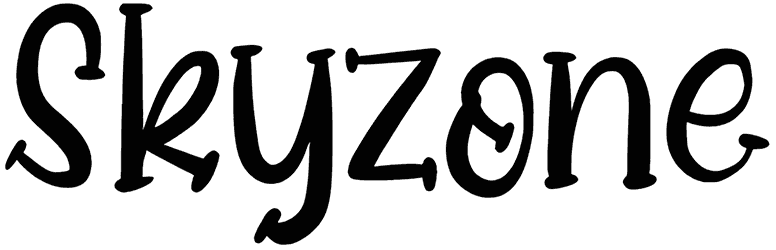
KG Melonheadz Font
KG Melonheadz is a cartoon font with narrow and skewed letters. This one is a great choice for when you need to show funny moods. Don’t hesitate and share a fantastic outcome with the help of this practical font and amaze anyone at a glance.